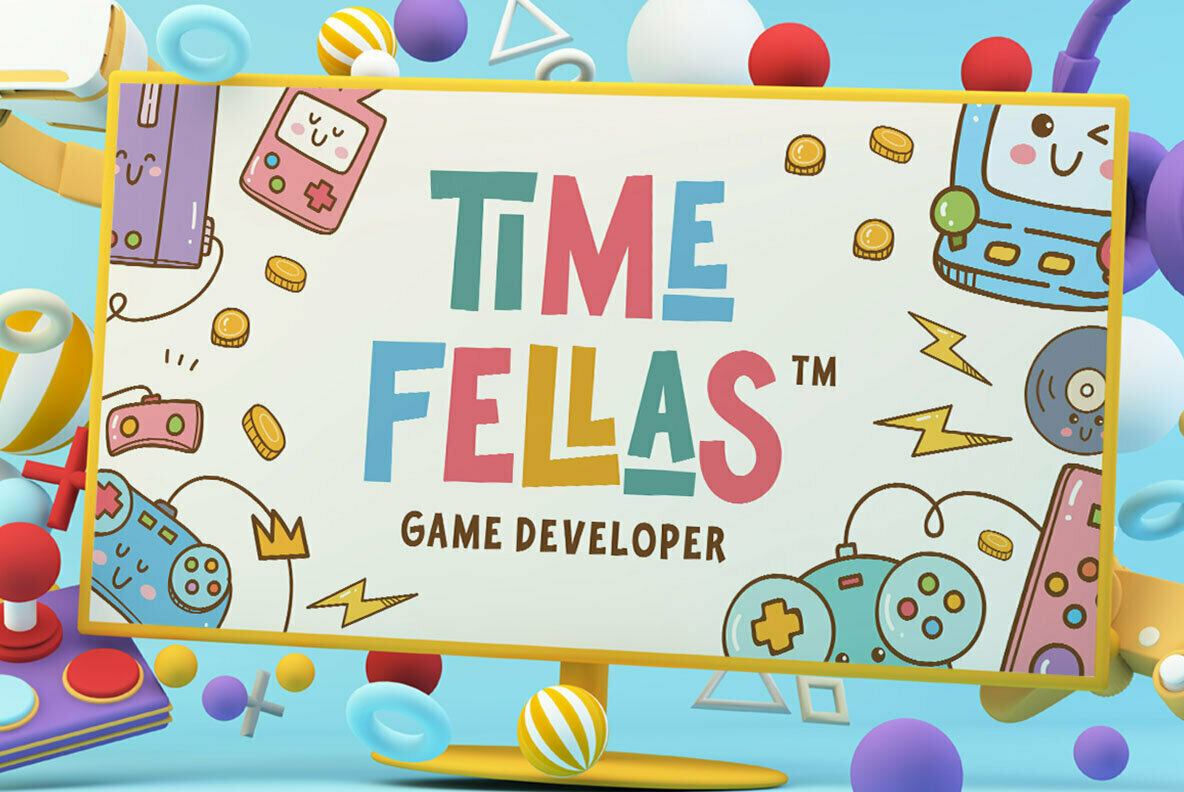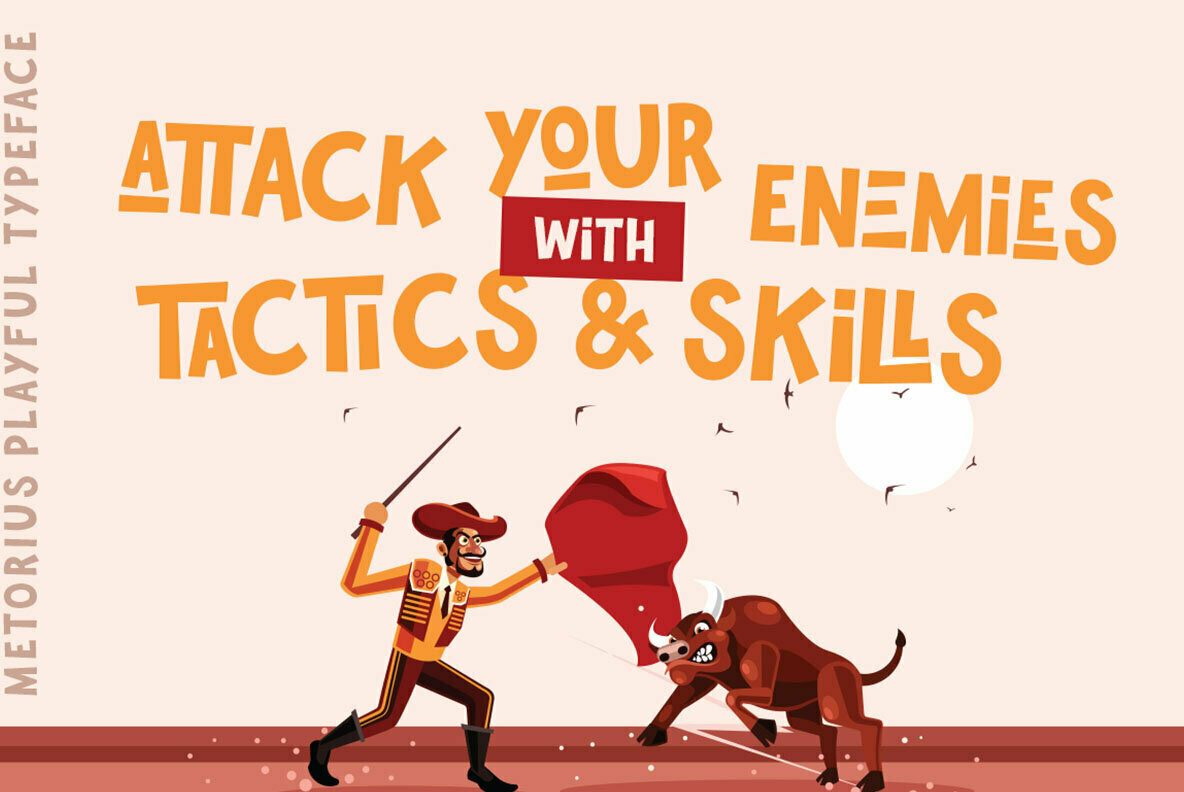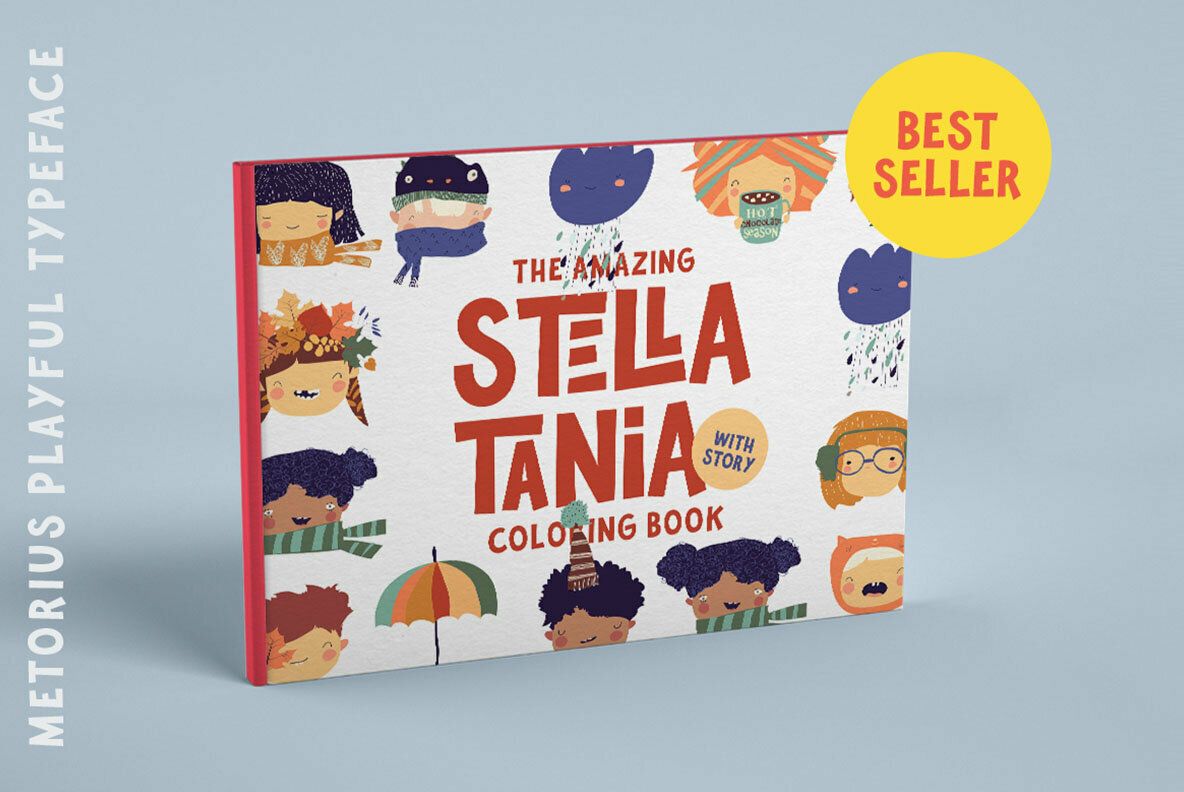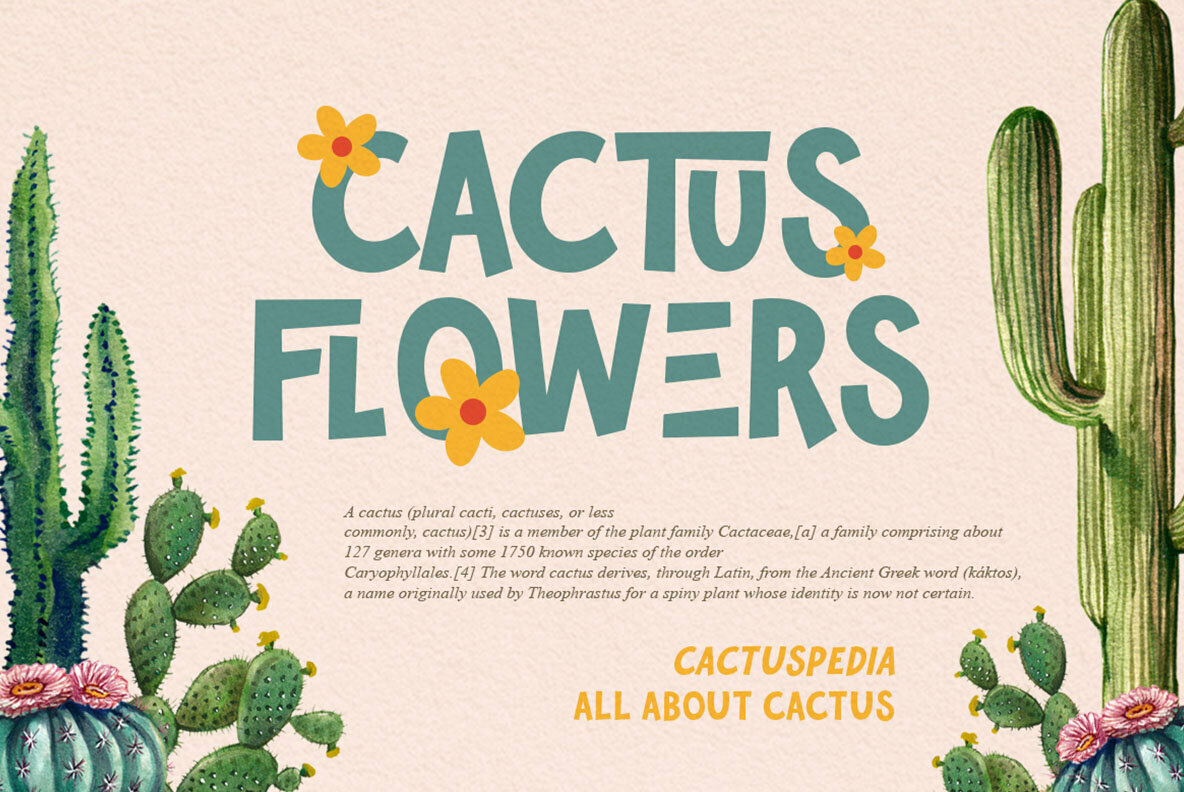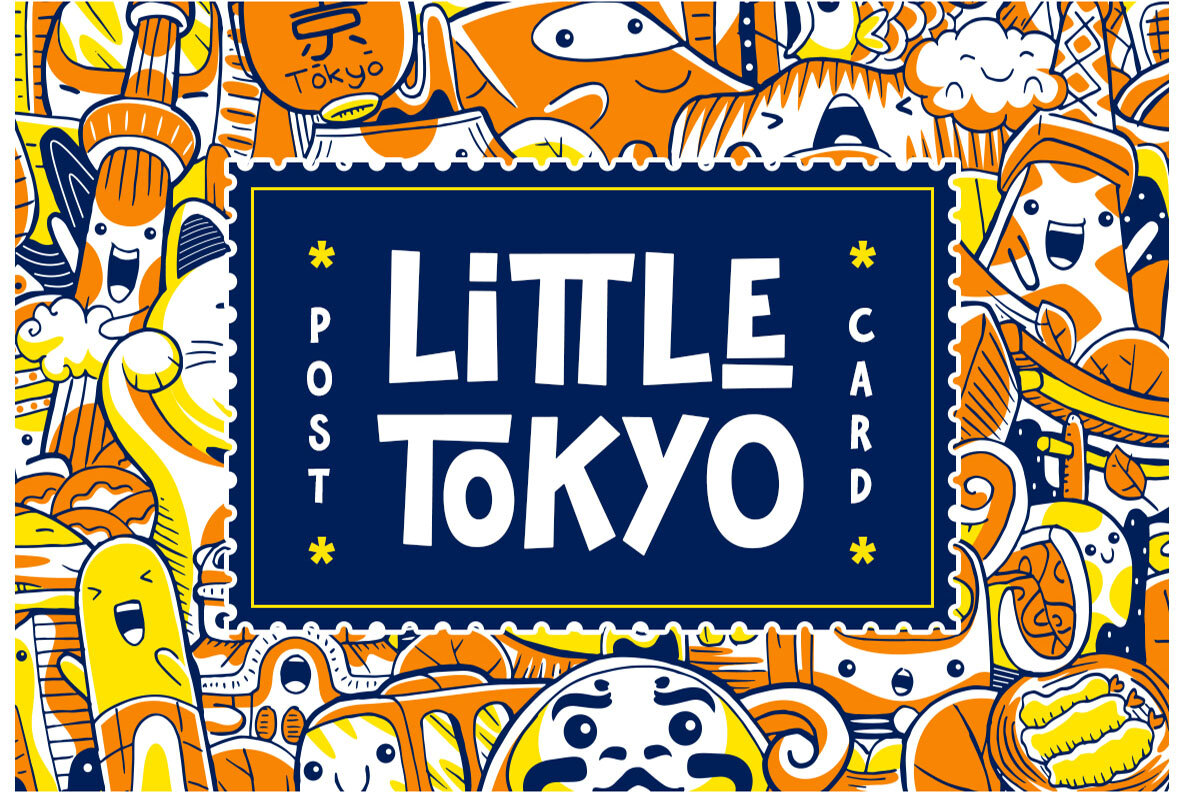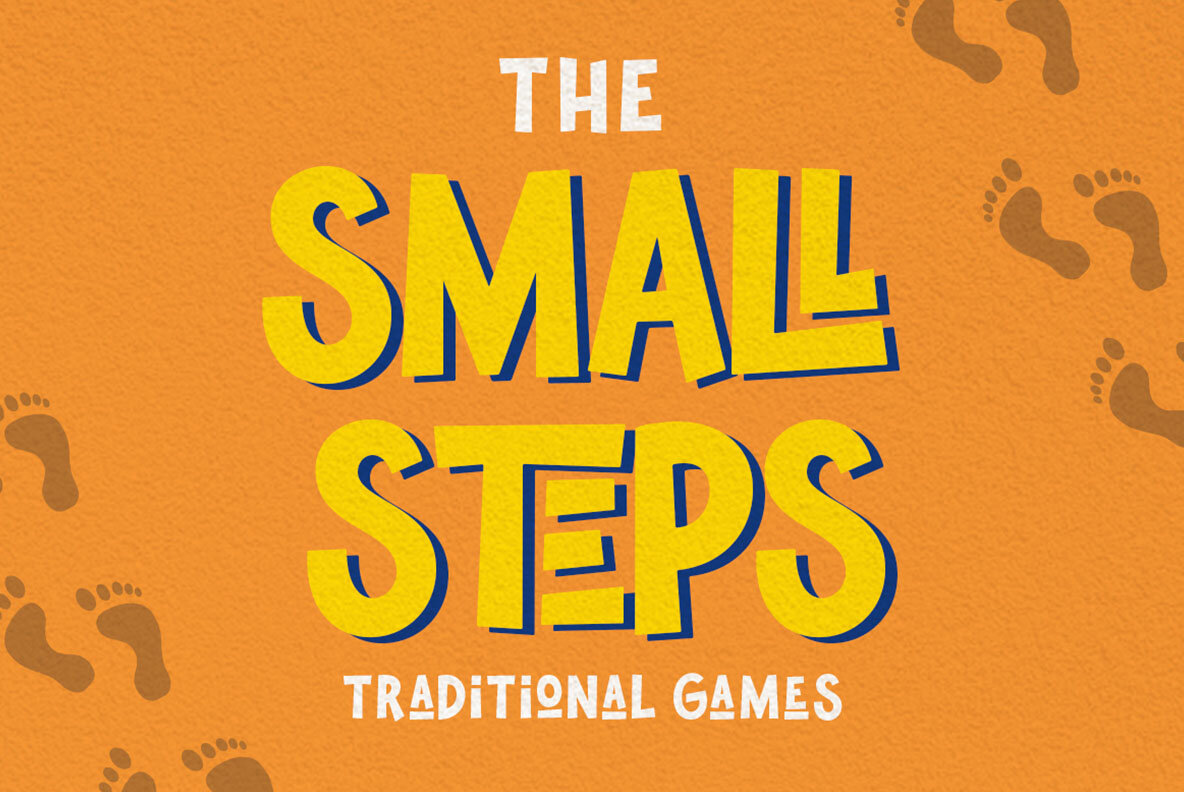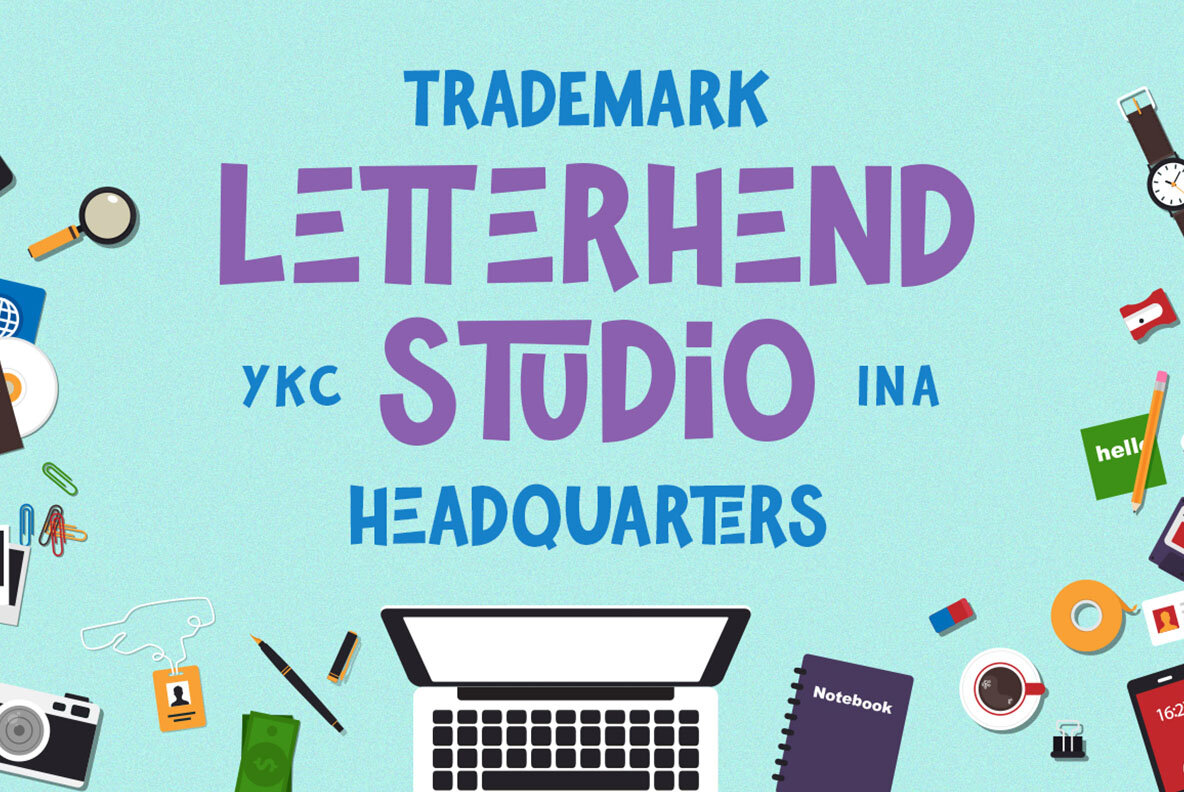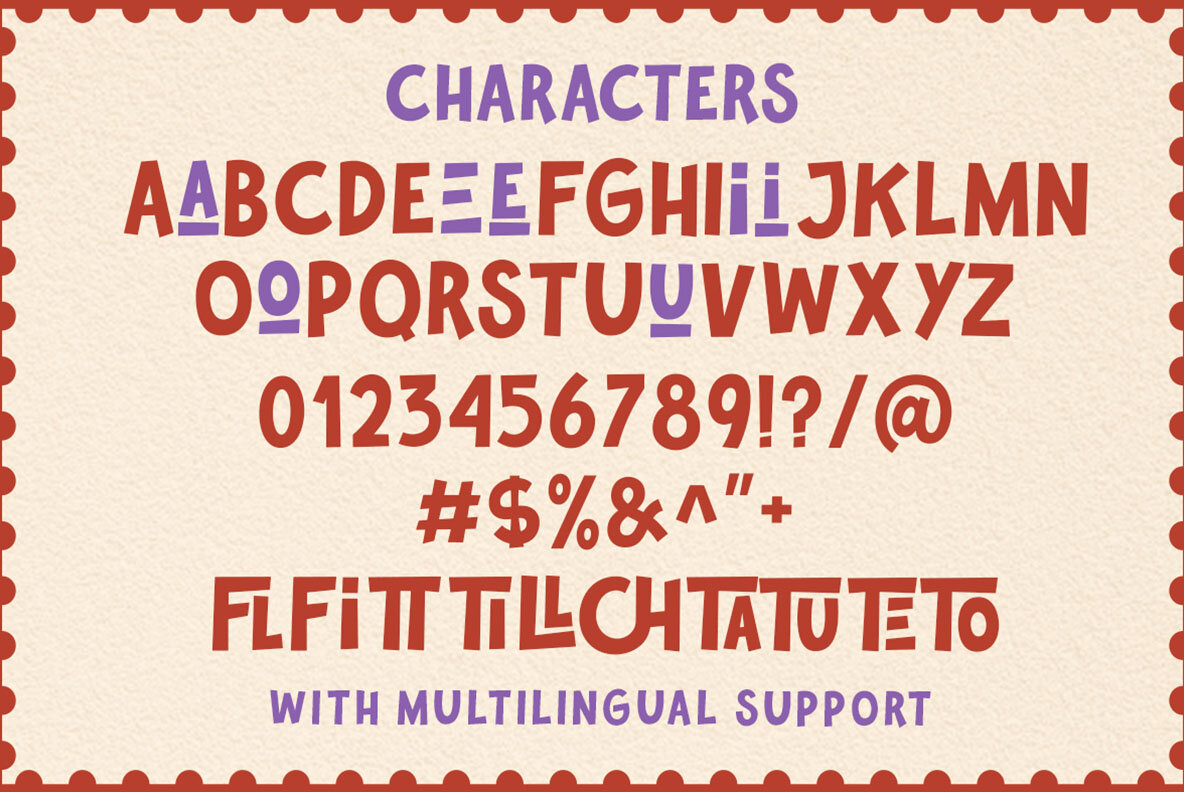
Metorius Font
Metorius Sans
Metorius offers a whimsical touch to your creative projects, capturing the essence of playfulness perfectly suited for children's storybooks or themes that require a distinctive flair. Beyond its child-like charm, this font adapts seamlessly to diverse formal applications, including invitations, logos, magazines, books, and advertising materials.Metorius: Playful Typeface for Child Themes and More